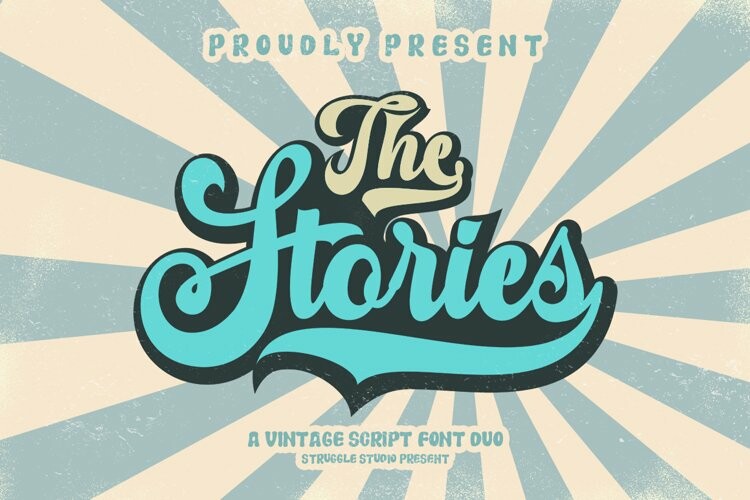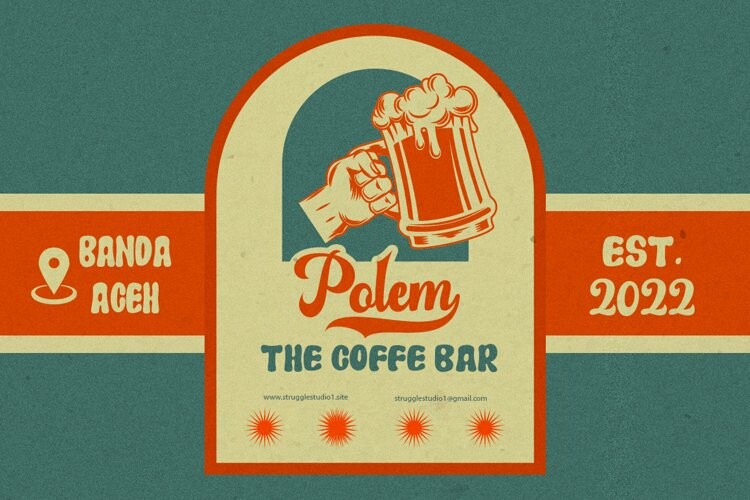
The Stories Duo Font
The Stories Duo FontThe Stories is a retro styled font with a stunning style that can make the most of your design projects. This font gives a touch of retro style that was famous in the 60-70s.
This font has an alternative style for Uppercase and Lowercase, Ligature, which can be adapted to your design needs so you don’t waste time creating extrusion effects.
The total glyph for this Stories Script font is 454 and for Stories Display it is 185, so you can choose according to the right style.